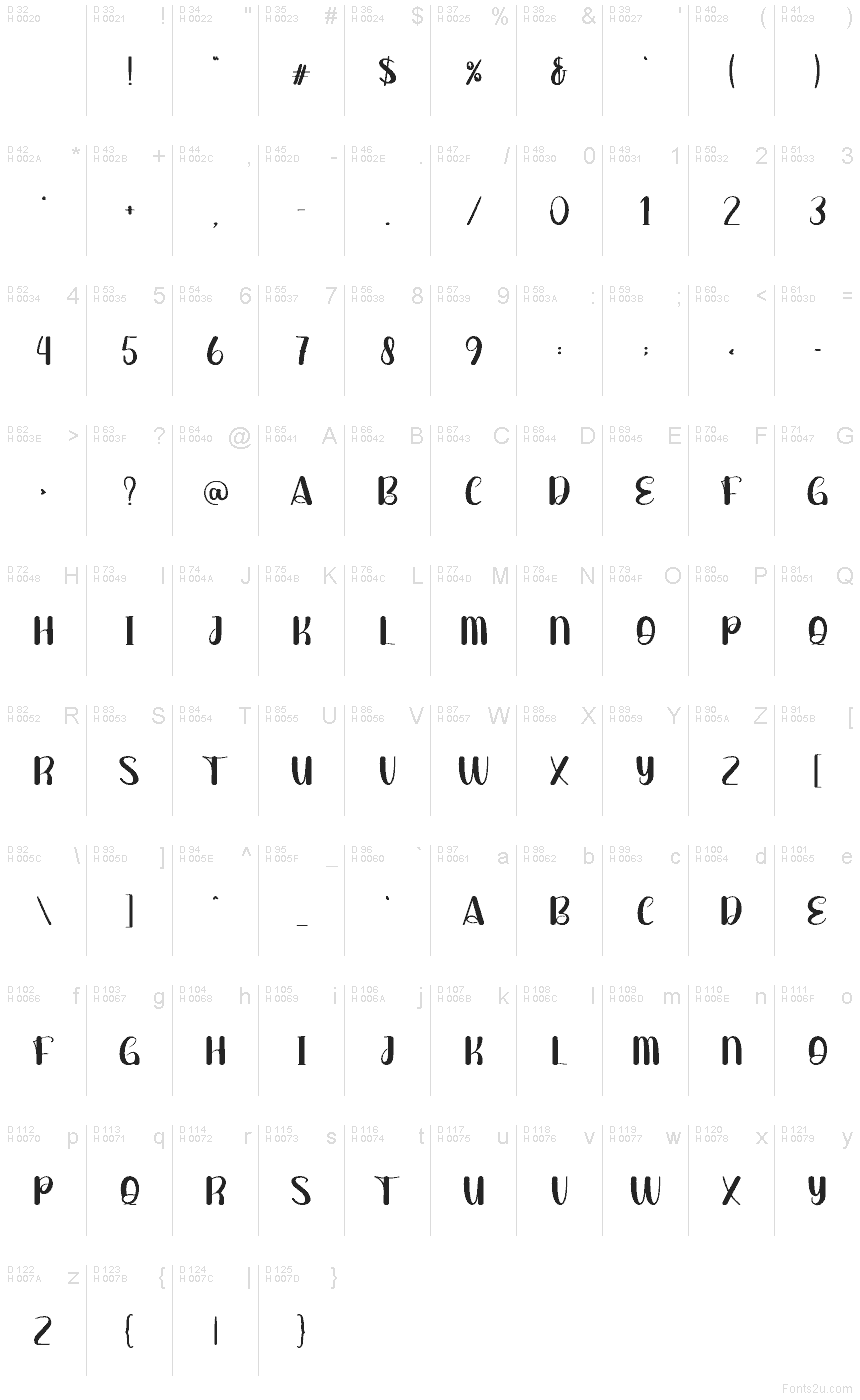
Morning Rainbow
Morning Rainbow font by Andi Moz is a free brush display font. It stands out with ribbon-thick strokes that swell and taper like wet ink, plus scooped counters that look like raindrops caught mid-swish. The letters sit upright with generous curves and soft terminals, giving it a friendly bounce while keeping words compact and legible at headline sizes.
Using Morning Rainbow, headlines feel playful without turning messy—great for kids’ branding, craft packaging, bakery menus, party invites, social posts, and sticker sheets. The even rhythm and chunky contrast create instant impact on colorful backgrounds. This free font works beautifully when paired with a light, unobtrusive sans for body text; try keeping Morning Rainbow big and airy with extra letter spacing to let those inky curves breathe.